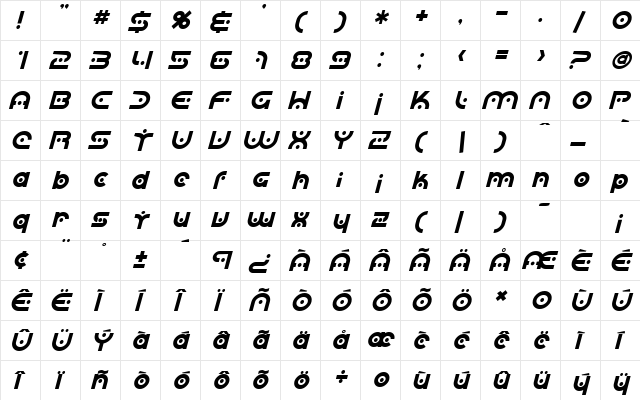
SF Planetary Orbiter Italic
Design Context for SF Planetary Orbiter Typeface
SF Planetary Orbiter is a composed and adaptable typeface that performs quietly and consistently across a wide range of design contexts. The slanted form adds forward momentum and visual energy.
Pro Tip: Try SF Planetary Orbiter for annotation and caption copy alongside an upright companion — the contrast in angle creates a dynamic but ordered typographic system.